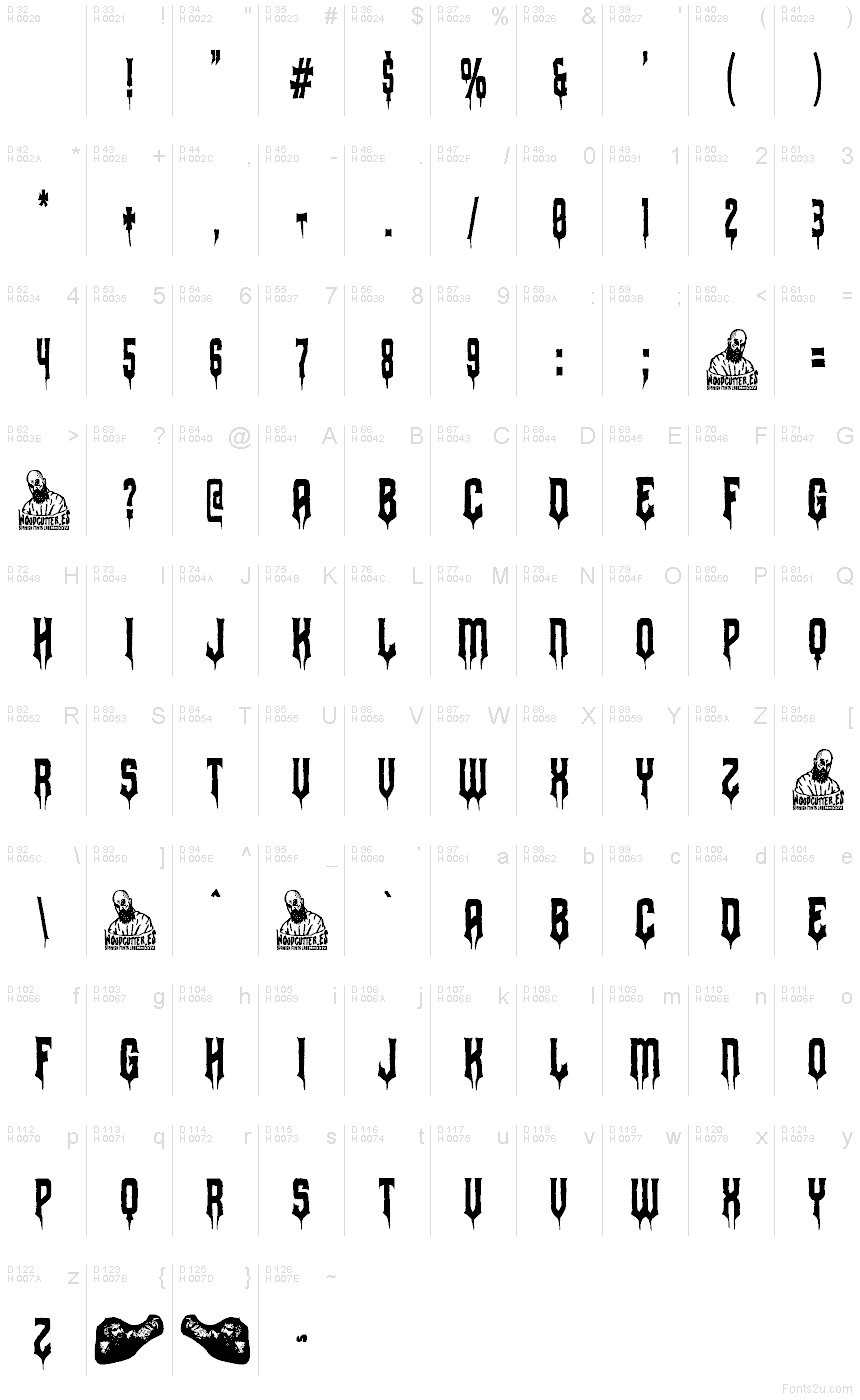
Revenge of Gods
Revenge of Gods font is a gothic-style creation by Woodcutter that provides an intense and aggressive look. This modern condensed font takes inspiration from medieval times for an overall dramatic appearance emphasized by sharp angles.